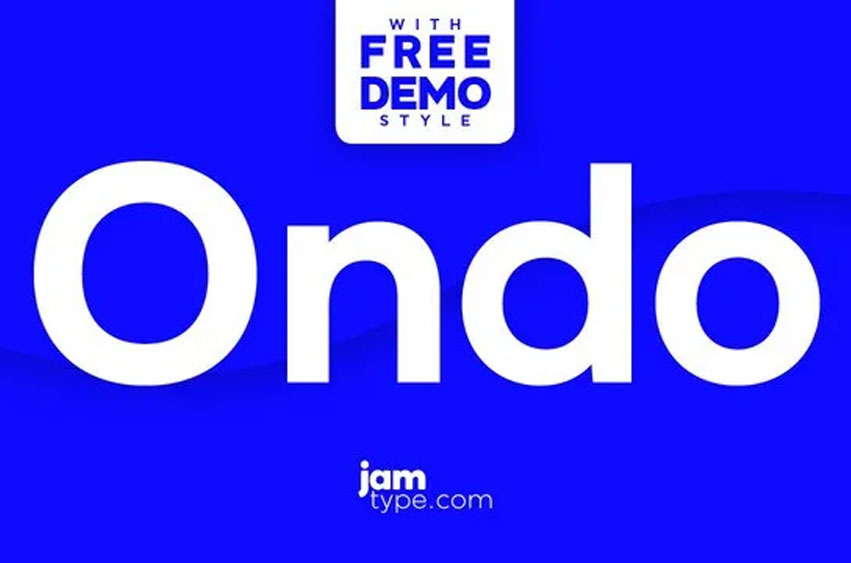
Ondo Font
Ondo Font is a low contrast geometric sans serif typeface with large open counters thus making the typeface to appear somewhat bold and modern. This feature makes Ondo fun yet realistic, and can be applied for large sections of the text, as well as headlines.
Ondo comes with more than 370 glyphs that are in a position to support many different languages. This is due to its 10 fonts, making it a perfect font family for text, branding, signage, print, and digital design.